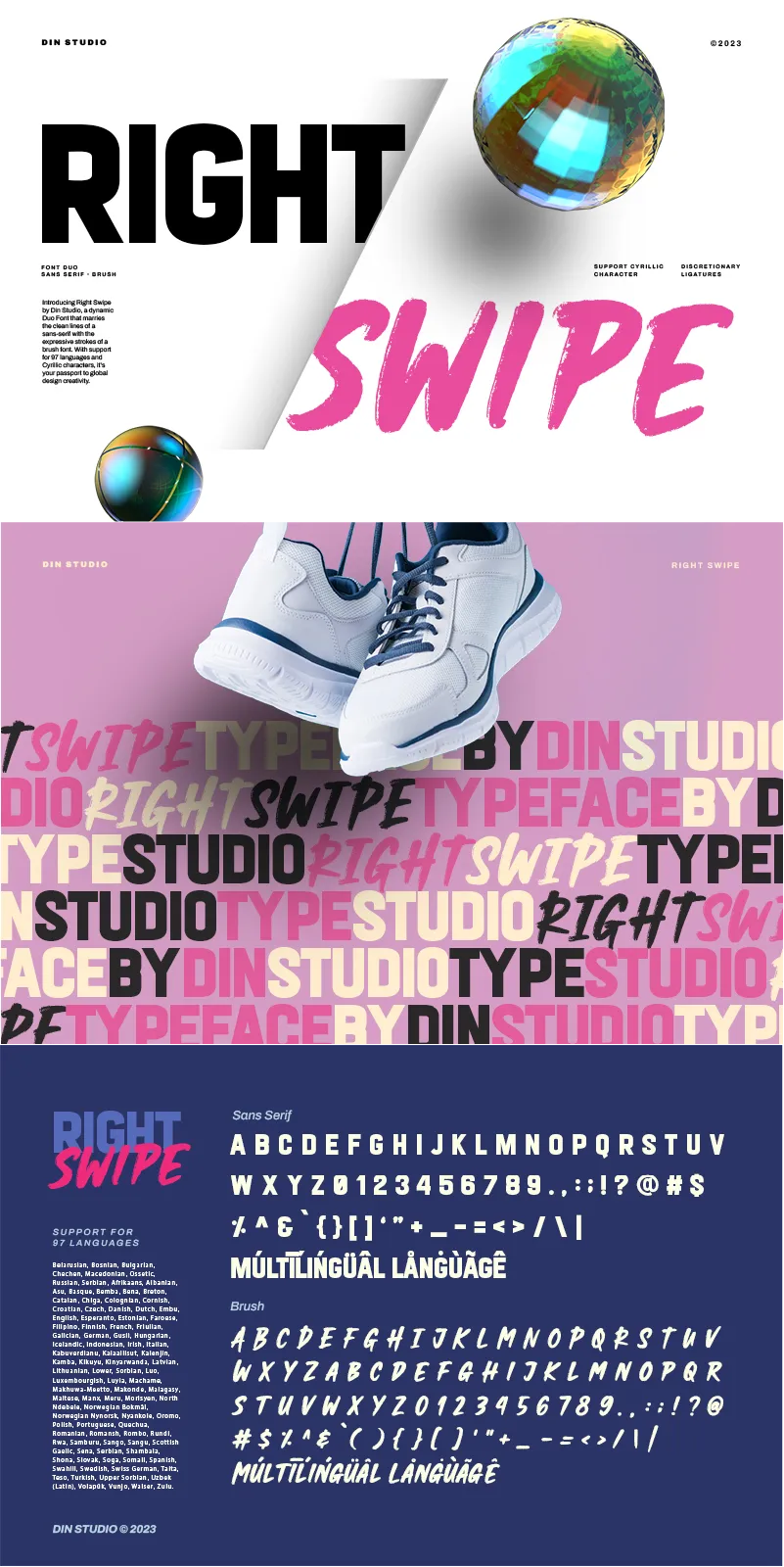
RIGHT SWIPE Font
About RIGHT SWIPE
Right Swipe is a fantastic sans serif brush font duo. The sans serif font, in the Right Swipe, is the epitome of simplicity and elegance. Designed in uppercase, it boasts clean lines and a minimalist aesthetic, making a versatile look. This sans serif typeface is all about timeless sophistication and modern appeal.
In contrast to its sans serif, the brush font adds a touch of creativity and spontaneity to the duo. The brush font’s characters are made in round shapes and consistent proportions, creating a harmonious appearance. Together, this duo offers a harmonious balance of elegance and creativity. In addition, enjoy the features here.
Right Swipe fits in headlines, logos, posters, flyers, greeting cards, branding materials, print media, editorial layouts, website headers, and many more. Find out more ways to use this font by taking a look at the font preview.